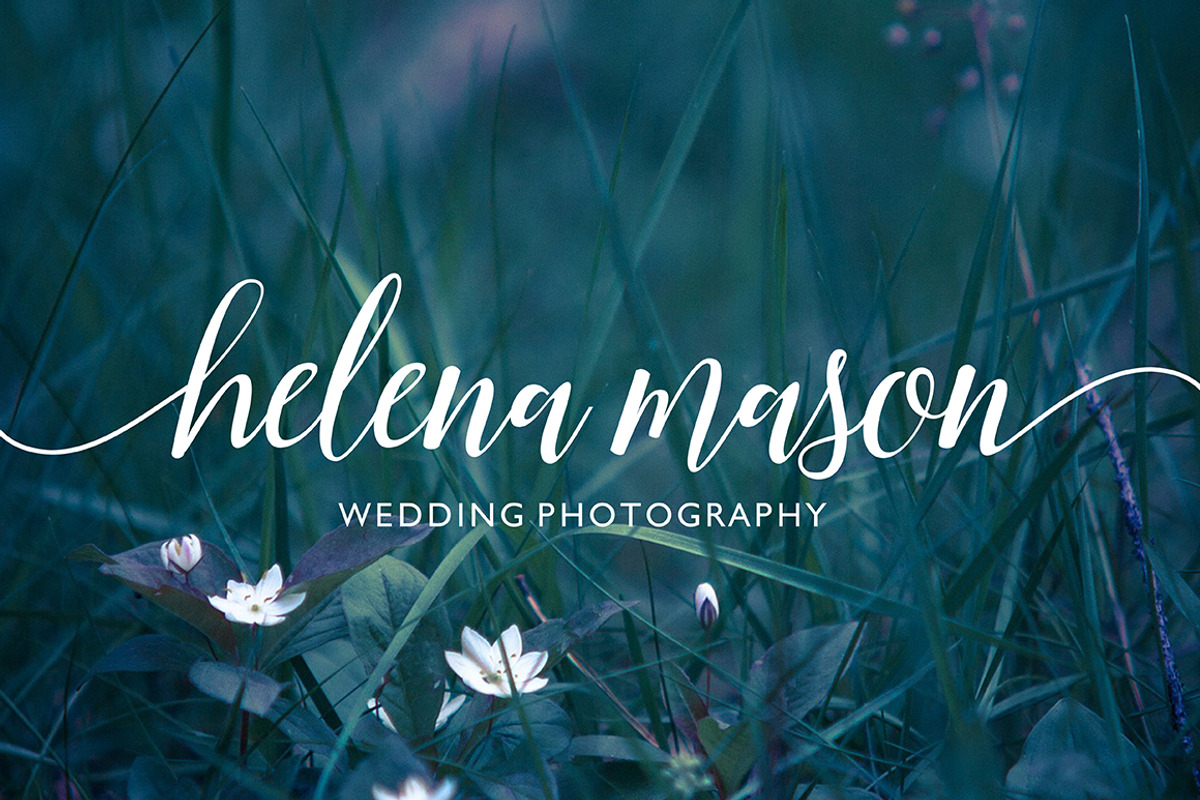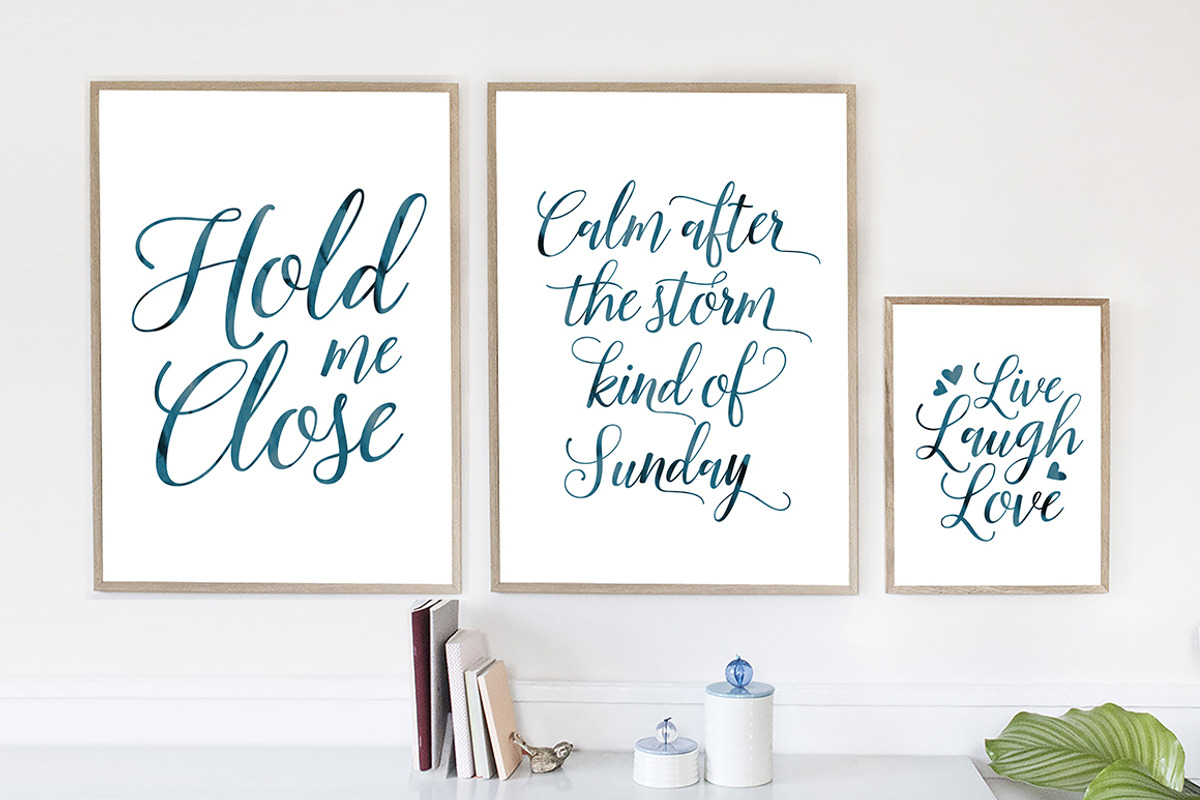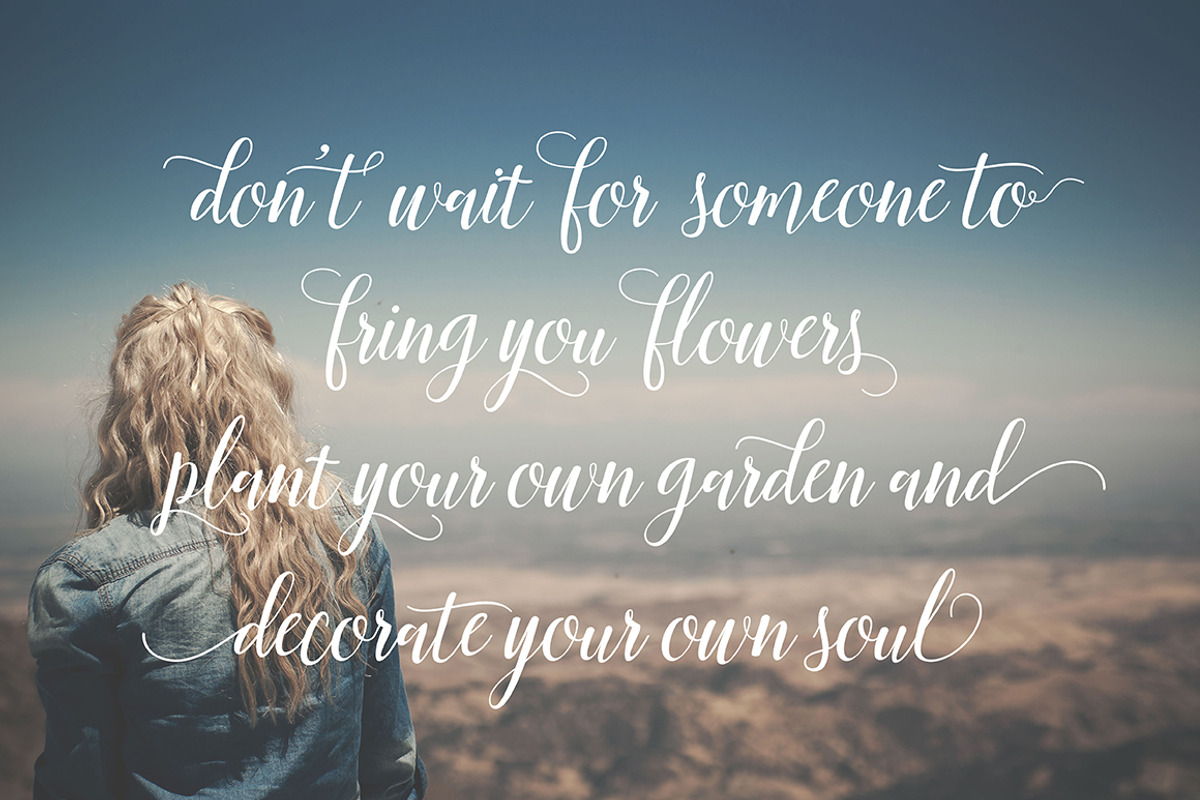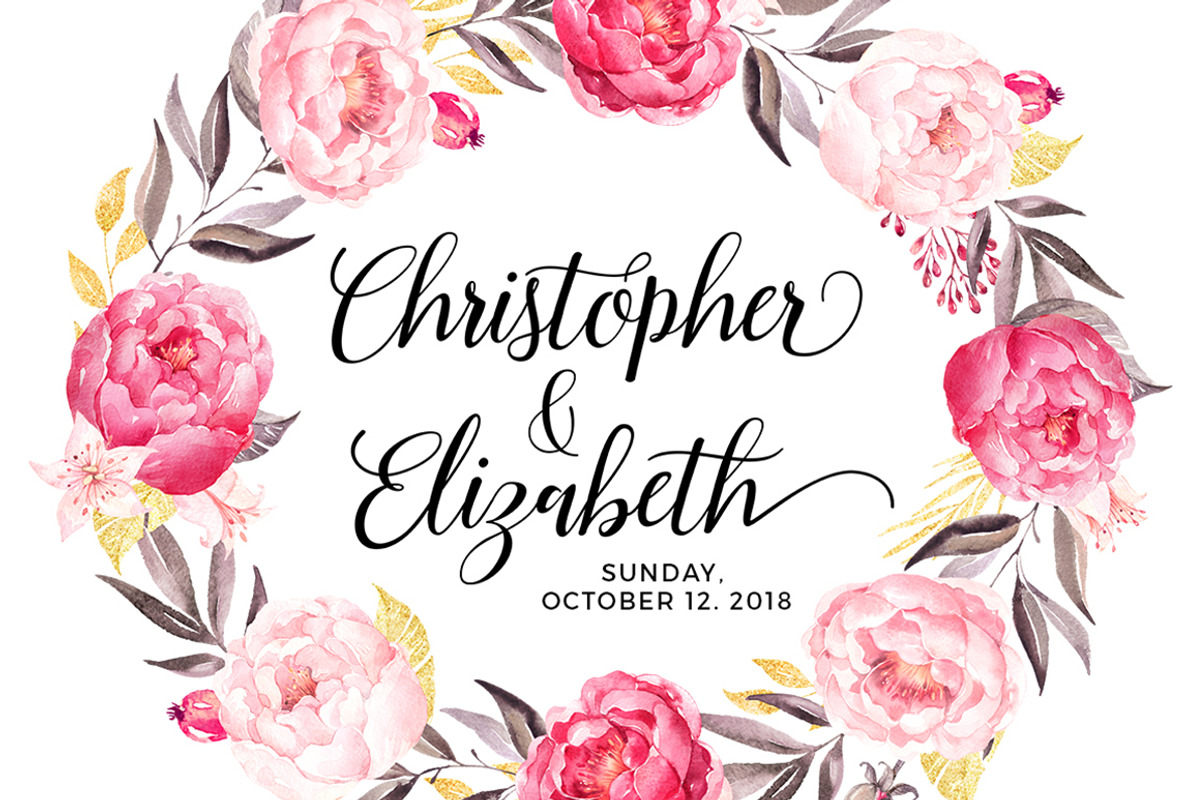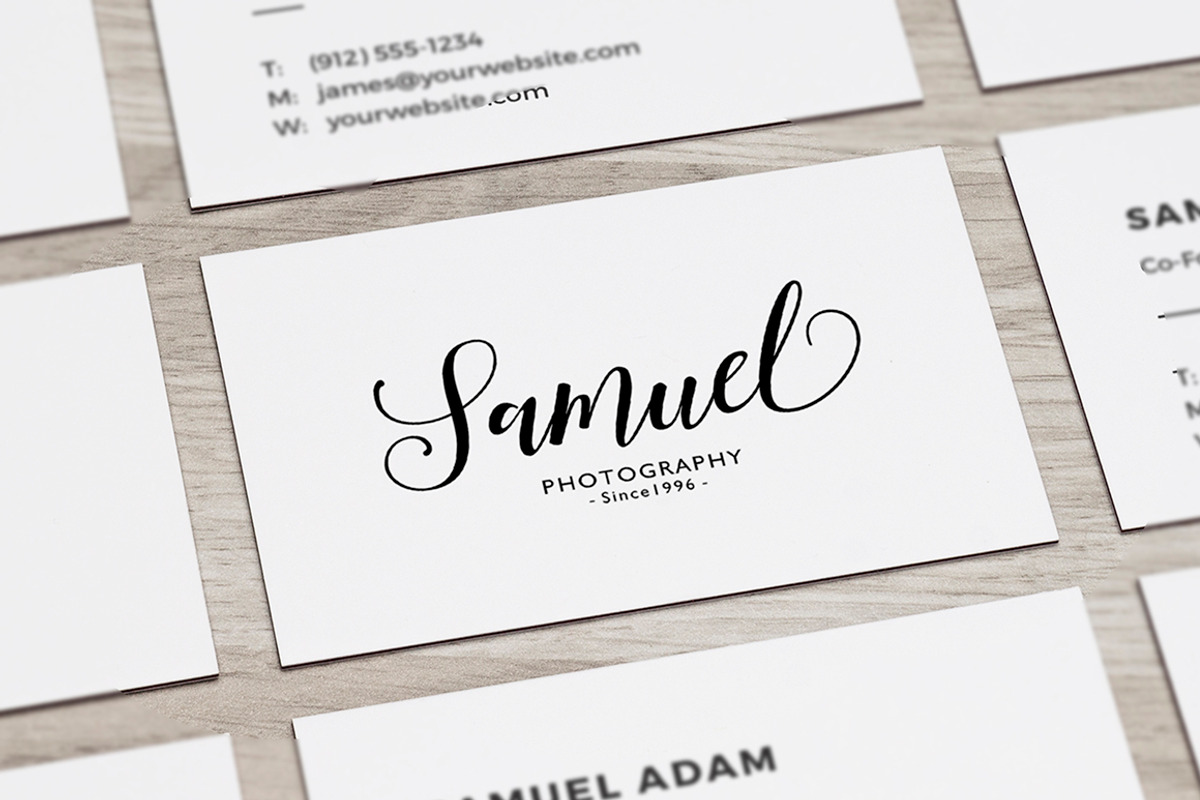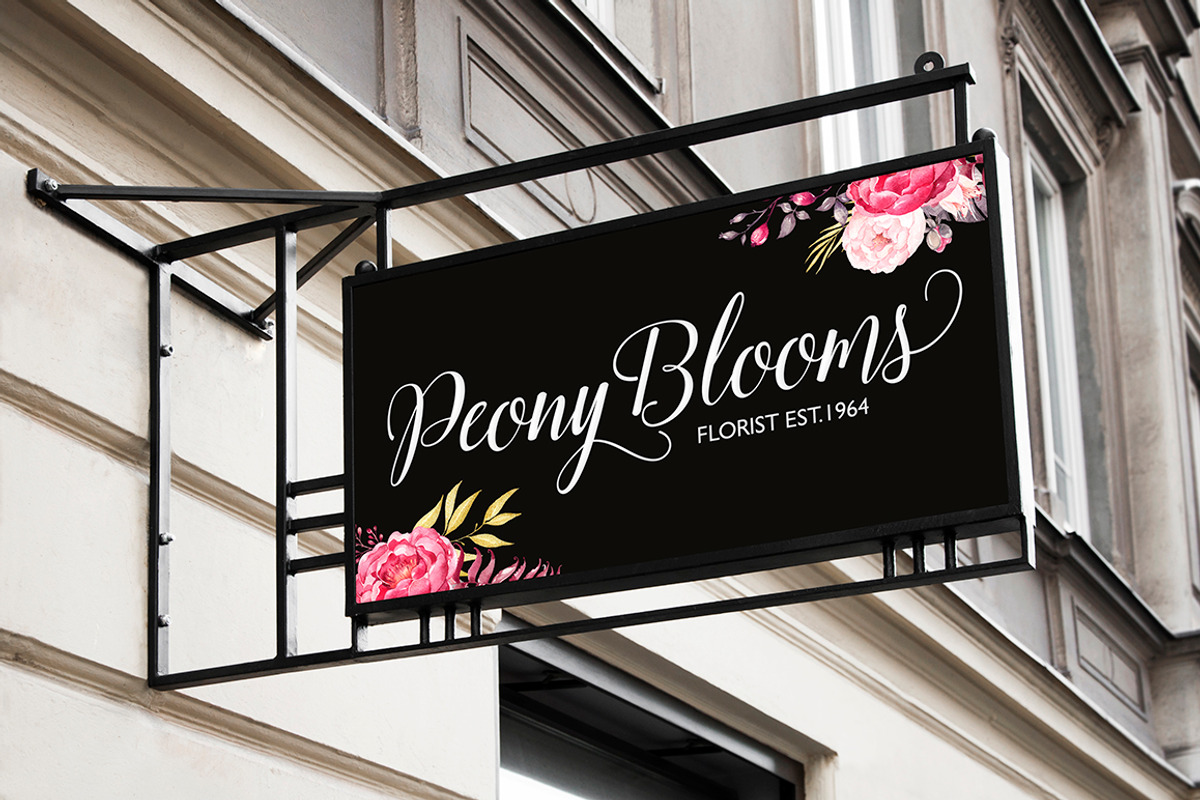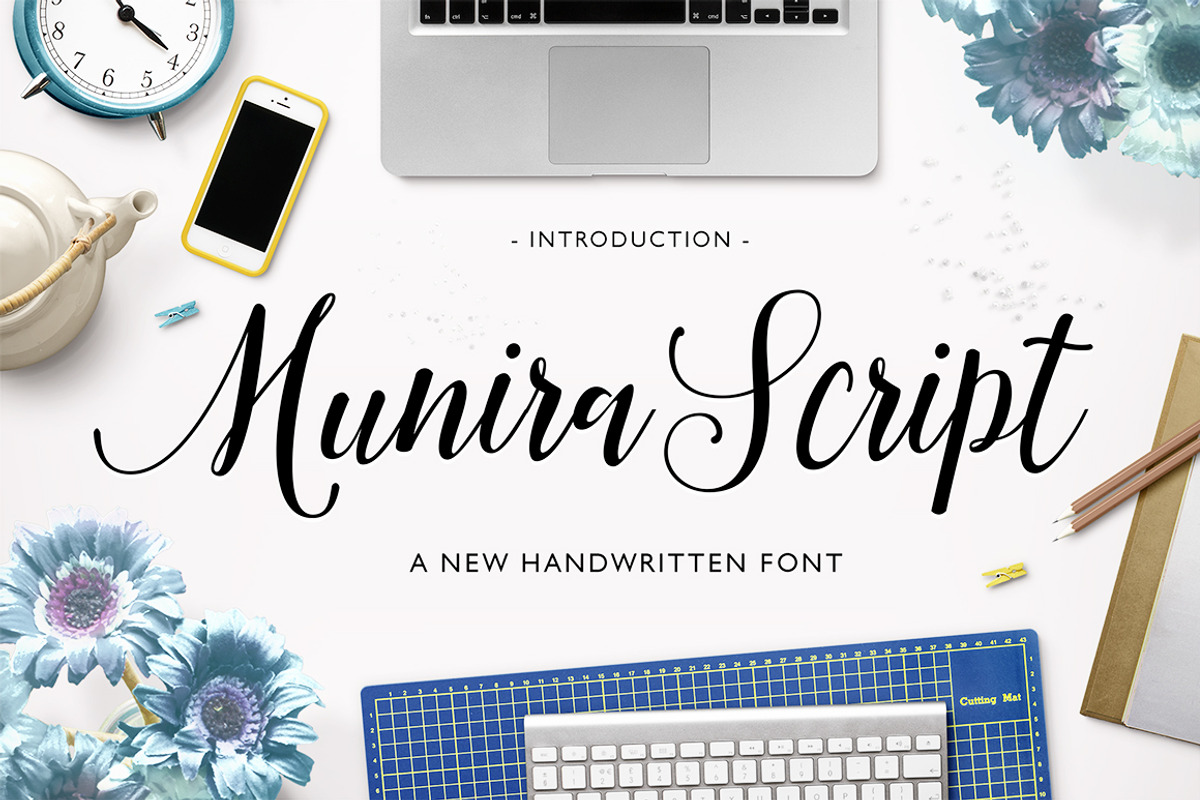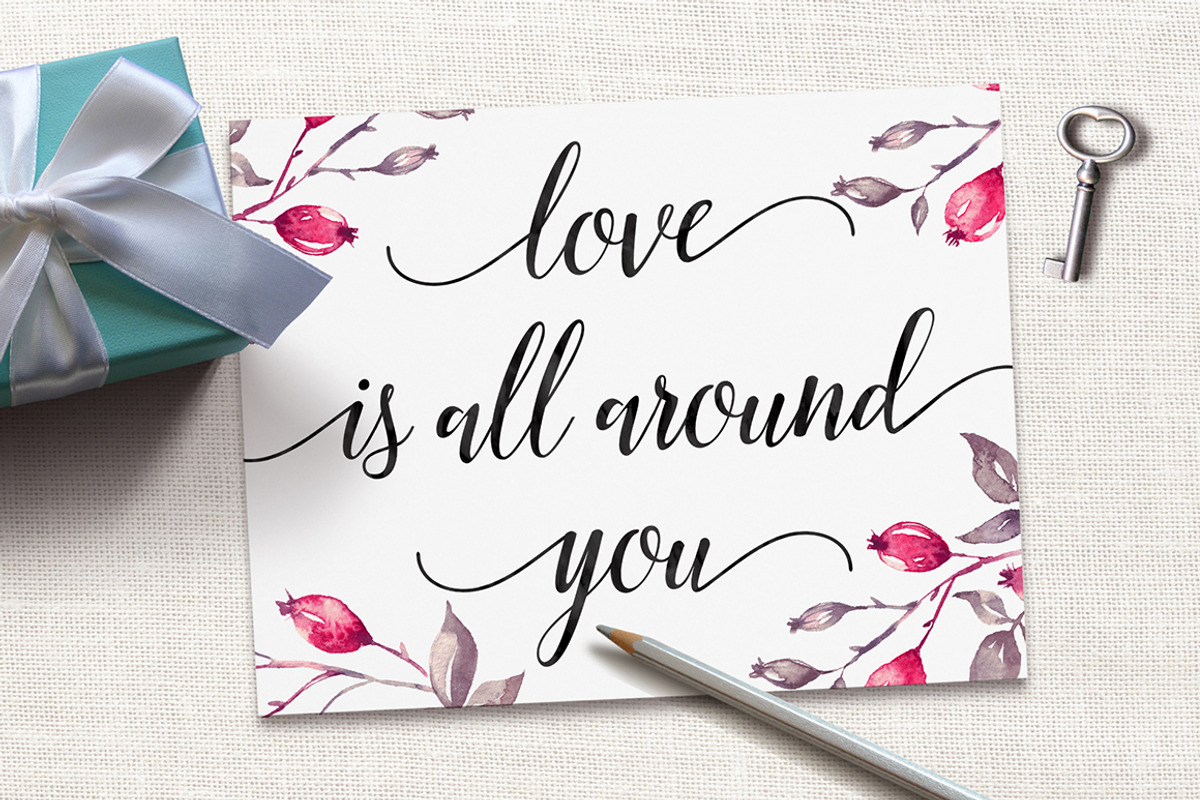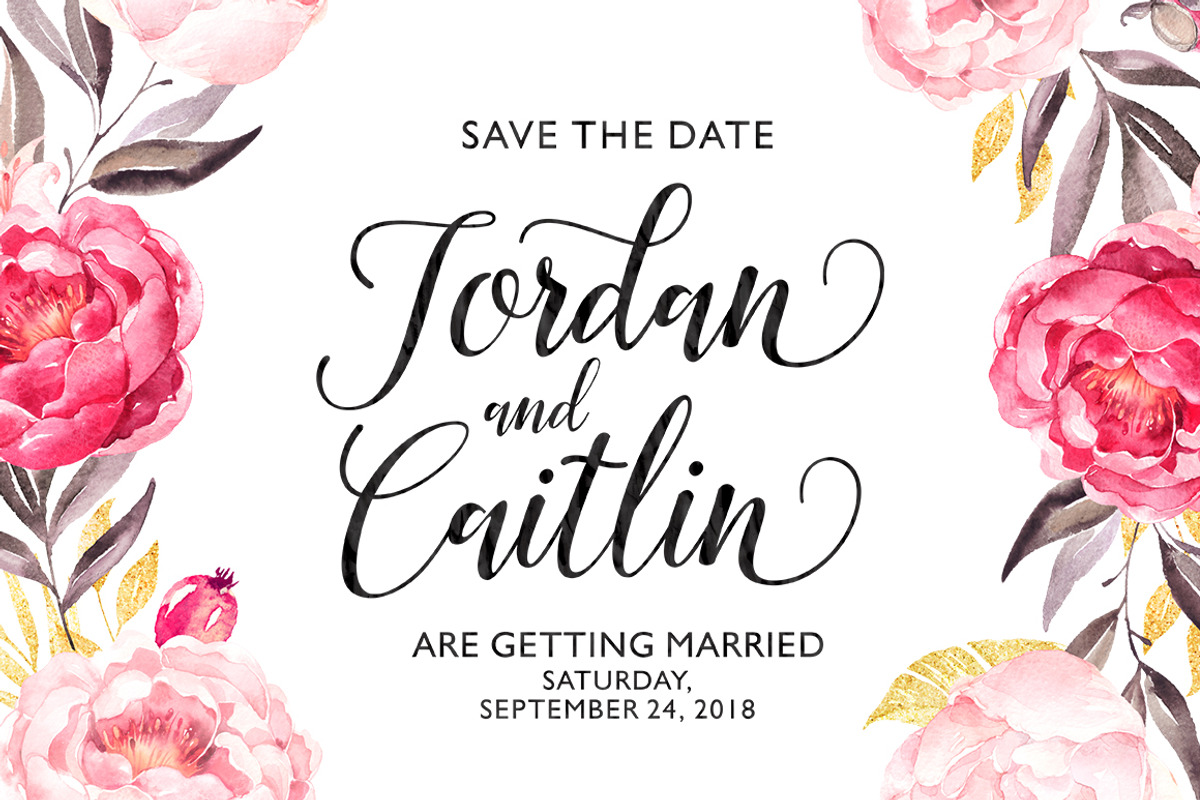
Munira Script
Modern calligraphy design, including Regular and Bold Script. This font is casual and pretty with swashes. Can used for various purposes. such as signature, logo, product packaging, wedding invitations, branding, headlines, signage, labels, book covers, posters, quotes and more.
Munira Script features OpenType stylistic alternates, ligatures and International support for most Western Languages is included.